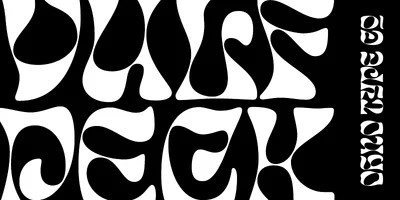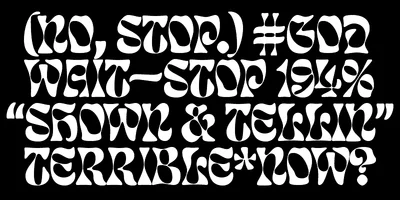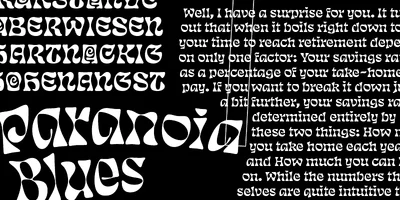
Elsie vs Eckmannpsych
Elsie is a popular open-source alternative to Eckmannpsych's expressive design. At 68% similarity, Elsie delivers a decorative, vintage aesthetic. Compare which works better for posters and album-art projects.
68% Similarity
Design overlap:40%
Elsie
Eckmannpsych
Elsie
Feature Elsie Eckmannpsych
Classification display display
Variable Font No No
Weights 400, 900 Multiple
Italics No Yes
Language Support latin, latin-extended latin
Recommended: Elsie
• Shares Eckmannpsych's display, retro character
• Delivers a decorative, vintage, feminine aesthetic
• Popular in enterprise-corporate design
Consider: Eckmannpsych
• Original design with refined typographic details
• Designed specifically for posters and album-art